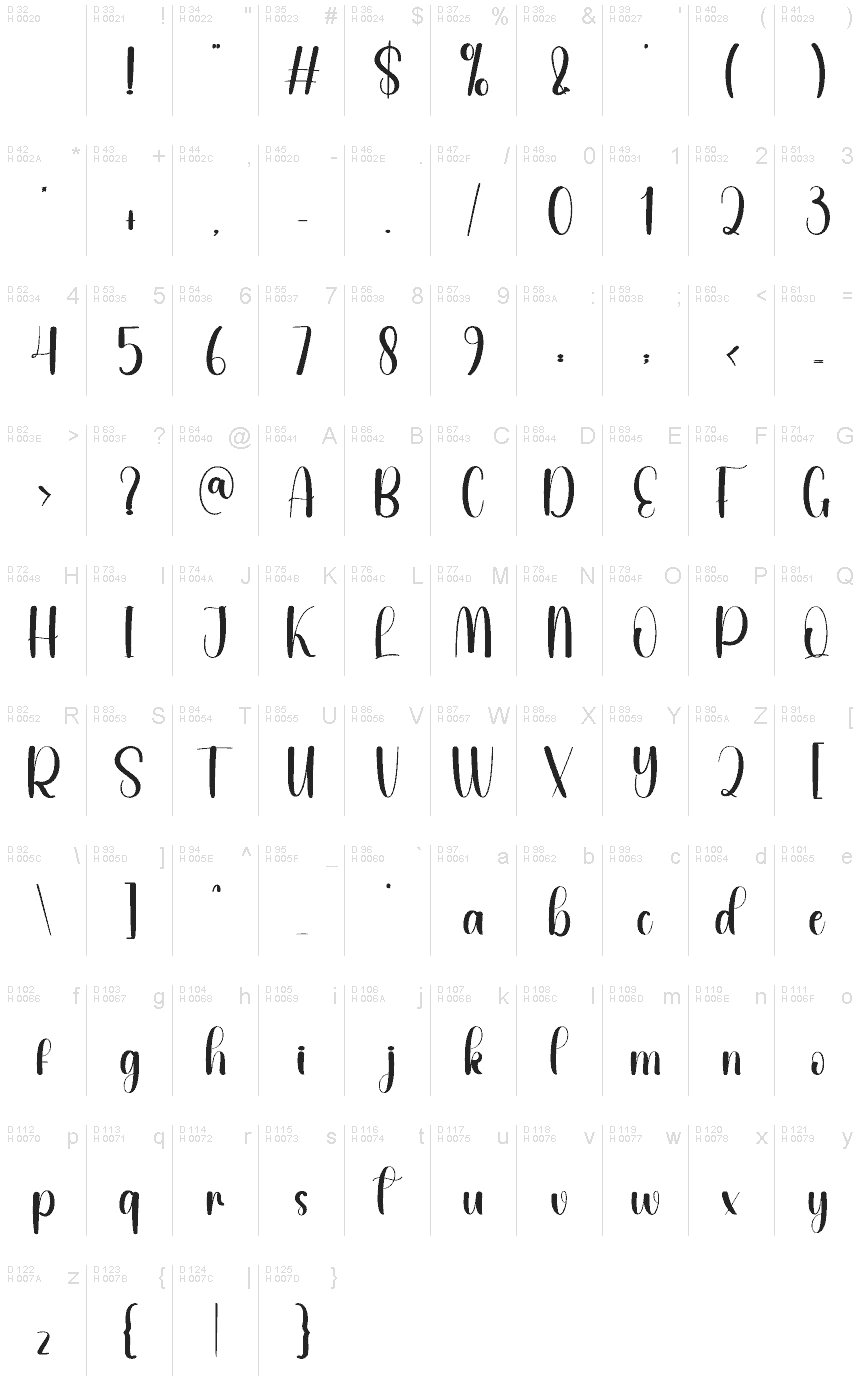
Qualitative
Qualitative font designed by Andi Moz is an elegant calligraphy font with decorative features for a sophisticated end result. Flowing lines blend perfectly for an expressive vision that pays tribute to one of the most iconic art forms in history. Stylish and modern, this free script font will impress with its curvy dashing appearance, inspiring all kinds of audiences.
Design professionals may use it to create signatures on branding projects, logos, pairings with sans serifs for typography creations, unique book covers and album art projects. Other uses of this fantastic typeface include personalized Instagram quotes and stories design posters, product packaging labels, fashion promotional material cards or wedding invitations.